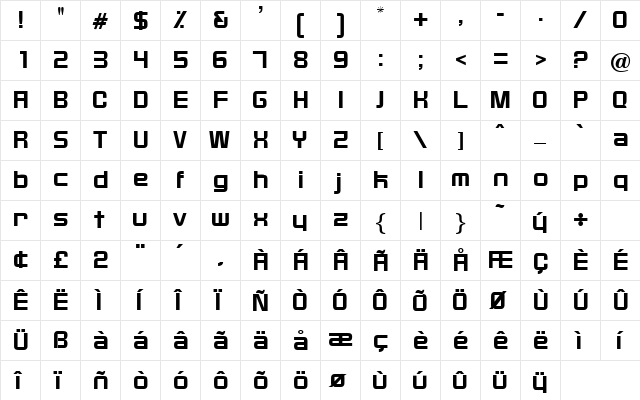
Bixby Regular
Design Context for Bixby Typeface
Bixby offers clean, dependable letterforms without strong stylistic allegiance, making it a practical choice for designers who need flexibility.